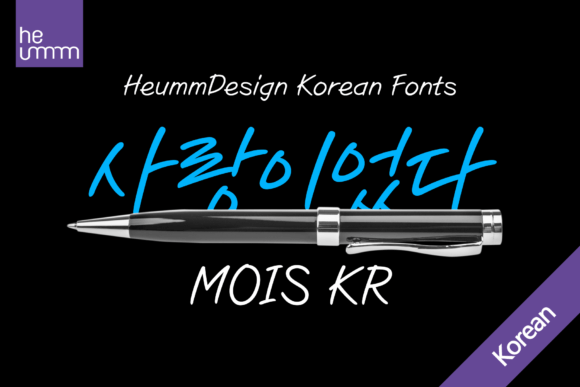
Voyage into the realm of boundless creativity and emotional evocation with Mois Kr, the enchanting script font that is a love letter to aesthetics! Embark on a journey of artistic expression as you explore the captivating allure of this Korean handwritten treasure. Mois Kr is not merely a collection of letters and symbols; it's a muse, a companion in your artistic journey, whispering sweet nothings into the ears of your imagination.
Every delicate stroke of Mois Kr is a heartfelt expression of love, a testament to the enduring power of poignant communication. Whether you're crafting a heartfelt note to a loved one, designing an invitation that exudes elegance, or weaving a tale of romance through your calligraphy, Mois Kr will elevate your words, transforming them into poignant whispers of the soul. Its flowing lines, reminiscent of a gentle breeze caressing flower petals, will add a touch of grace and charm to any project.
With Mois Kr, you'll find yourself immersed in a symphony of creativity, where each character dances across the page like a ballerina, telling a story of love and longing. Your designs will blossom with newfound beauty, capturing the essence of emotion and inviting your audience into a realm of heartfelt connection.